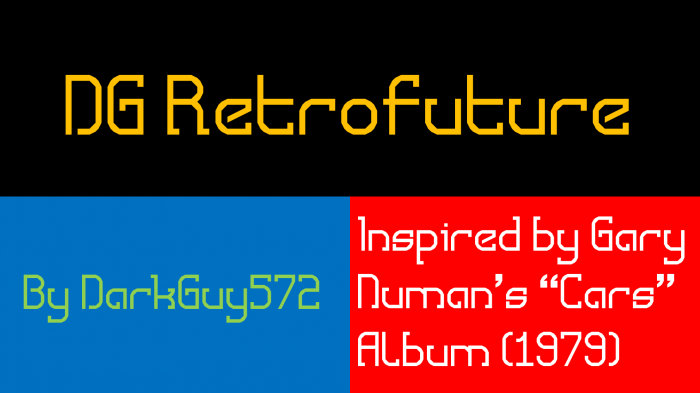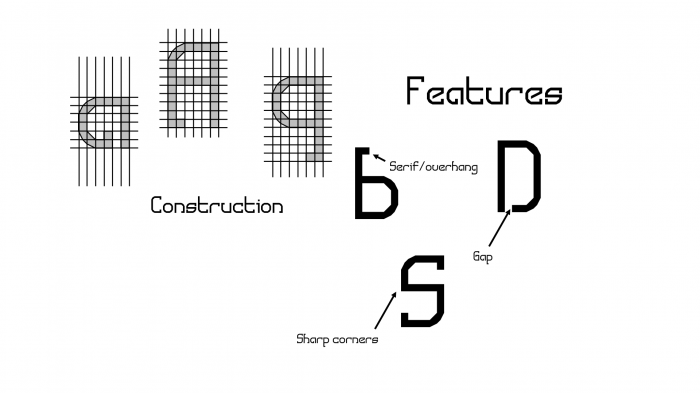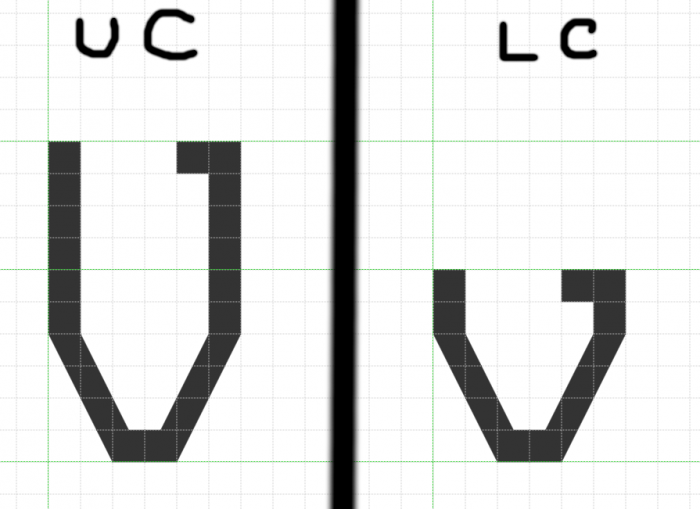
Should I add characters with accents?
This font looks pretty good for 1x1 filters… The current Vv look similar to the Uu to me. Maybe you could try this as Vv?
As for the accented letters, you can if you want to…
That's just how V is written sometimes. But yes I will try and to that.
Fixed!
Nice work. The lowercase j's descender would be better shorter, so it doesn't interfere with other letters with descenders. The font on Gary Numan's album is Aquarius, if you want to compare more characters.
@Yautja: Thanks for the appointment, pal. I was working on this way, searching the original font to bring the possibility of a comparison for DG. Aquarius is a pretty font.
I fixed it, Yaut. Note: Yaut is a nickname for you now.